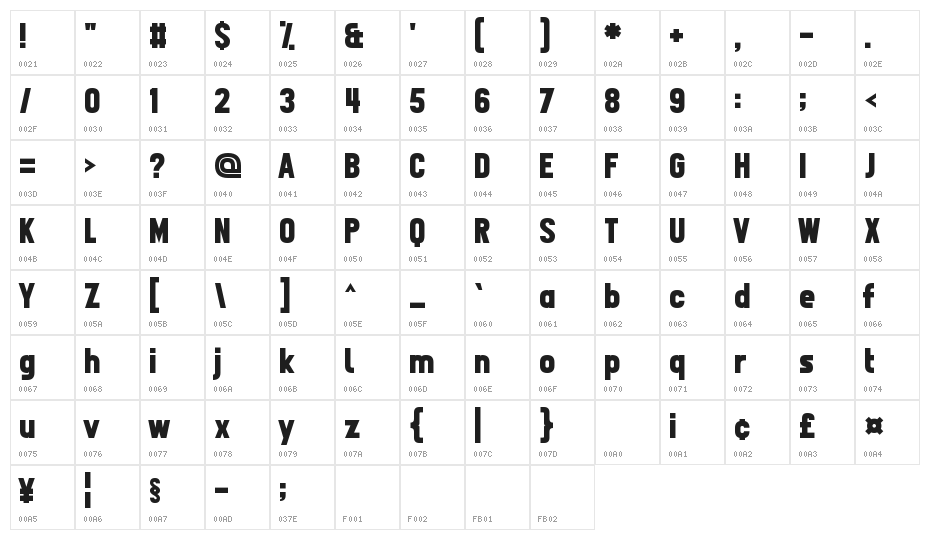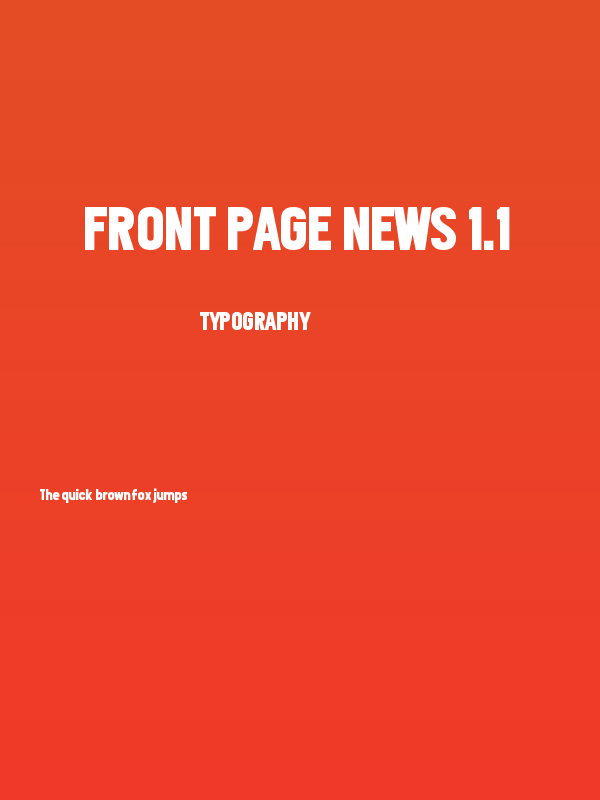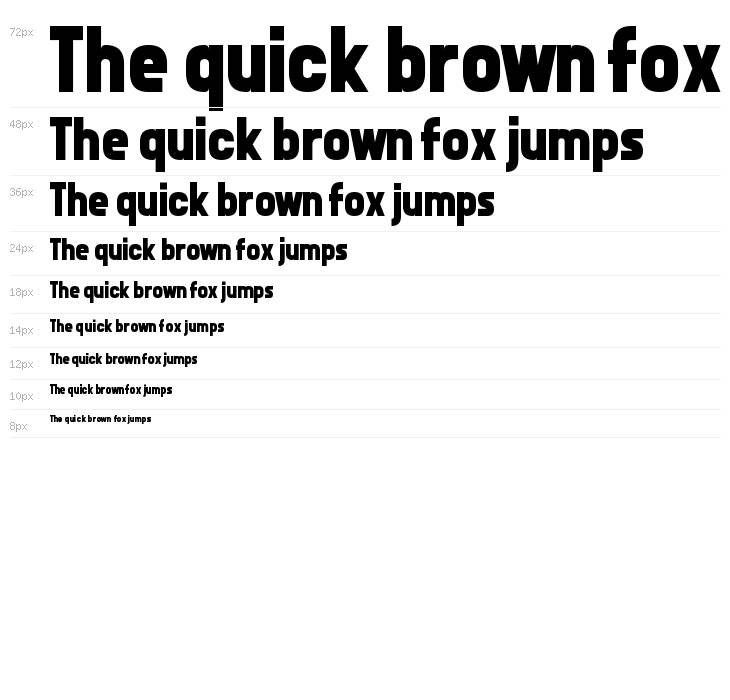
Front Page News 1.1 Font
Front Page News 1.1 Description
This bold and impactful font features strong, thick strokes that convey a sense of authority and presence. The uppercase and lowercase letters are designed with a uniform width, creating a cohesive and balanced appearance. The numbers and special characters maintain the same boldness, ensuring consistency across all text elements. The font's design is straightforward and modern, with a slight geometric influence that adds to its clean and professional look. It is highly legible, making it suitable for both digital and print media.
| Proposed Projects | Ideal for headlines, posters, branding, and advertising where a strong visual impact is needed. |